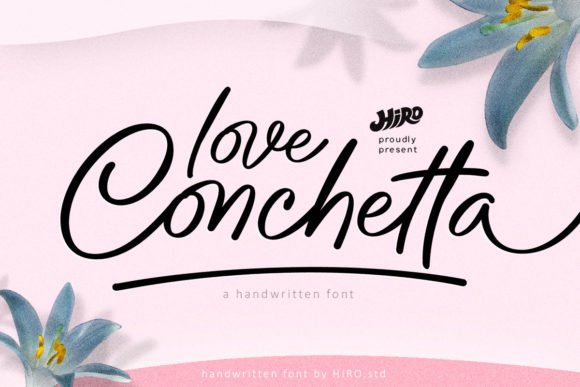
Introduction to Love Conchetta Font
Love Conchetta is an exquisite handwritten font, masterfully designed to become a true favorite.
Key Features of Love Conchetta Font
Why Choose Love Conchetta Font?
Love Conchetta Font offers exceptional quality and versatility, making it a valuable addition to your design toolkit. Whether you’re creating for personal projects or commercial use, Love Conchetta Font delivers professional results.